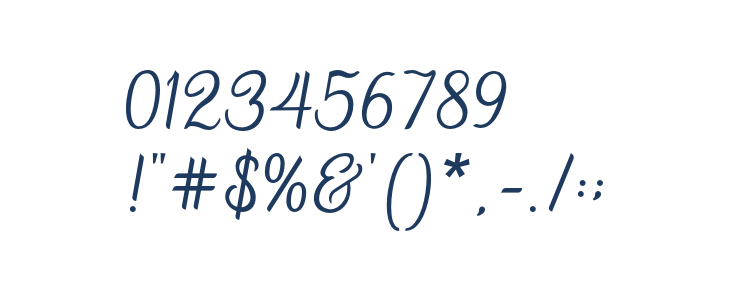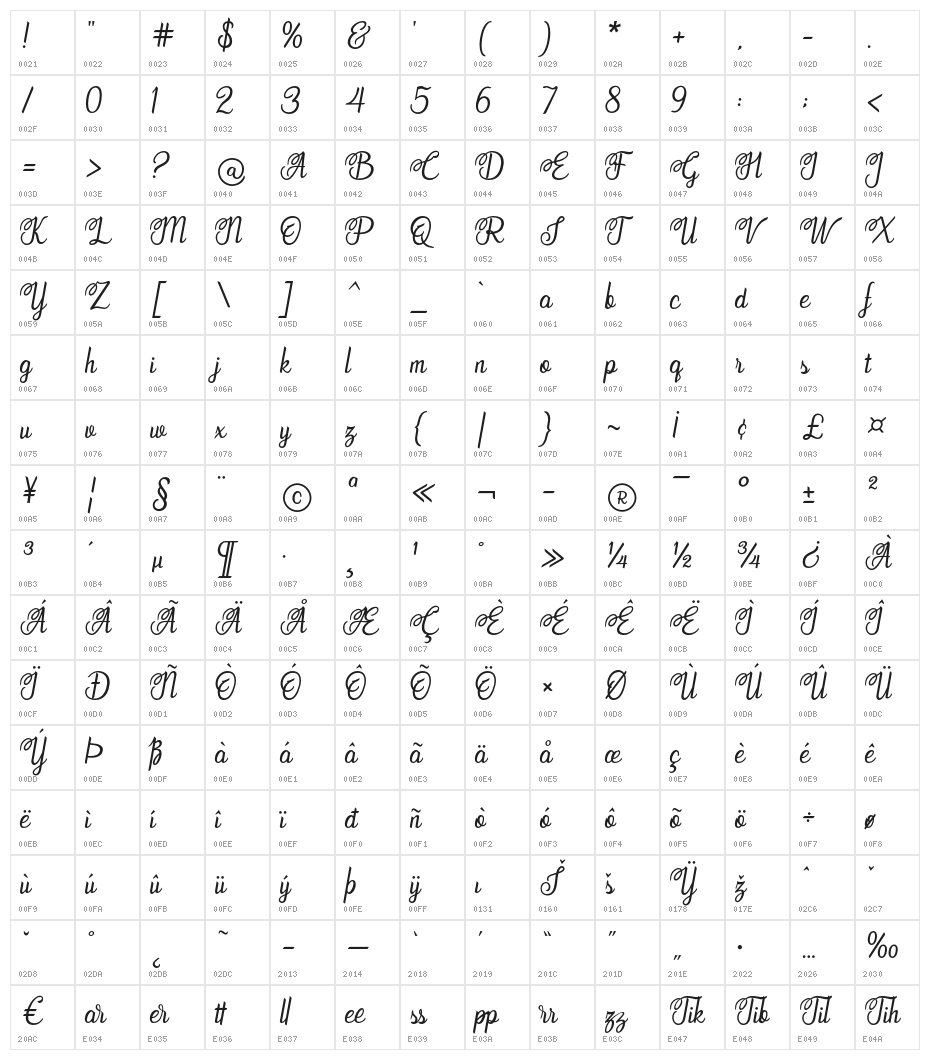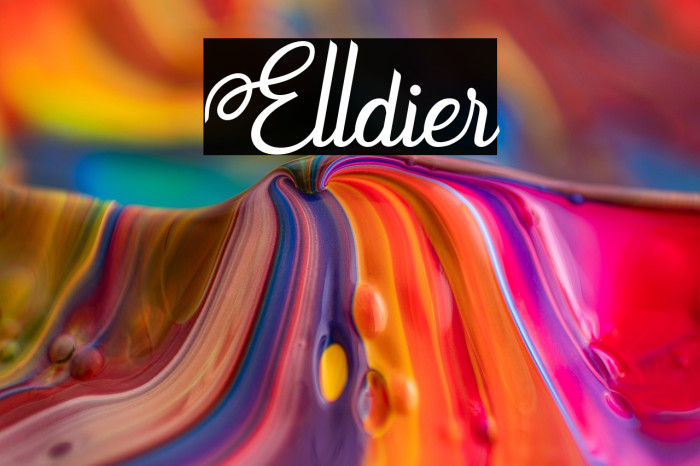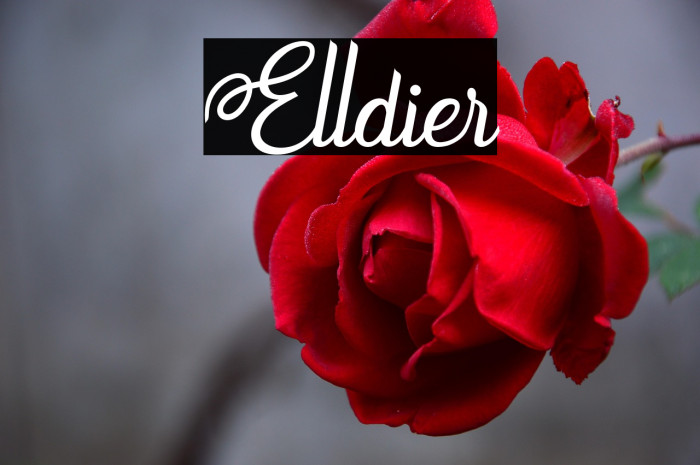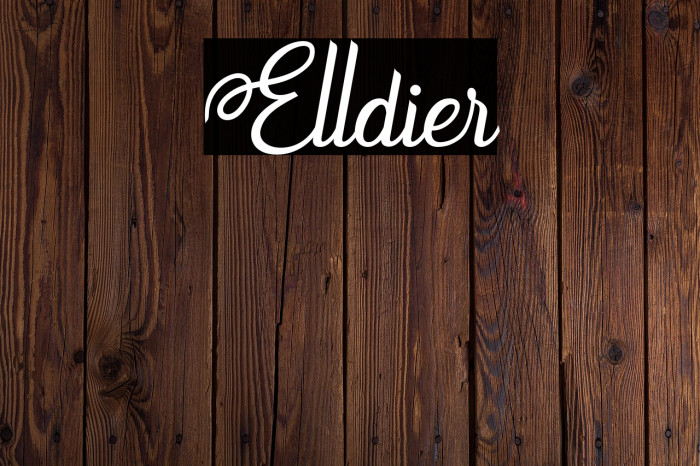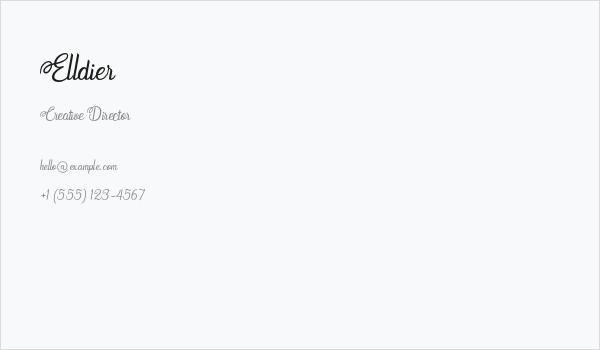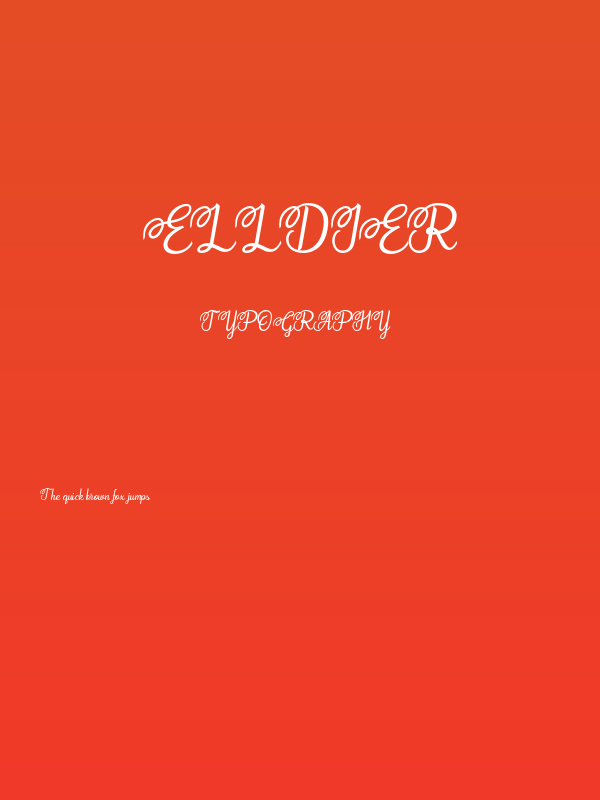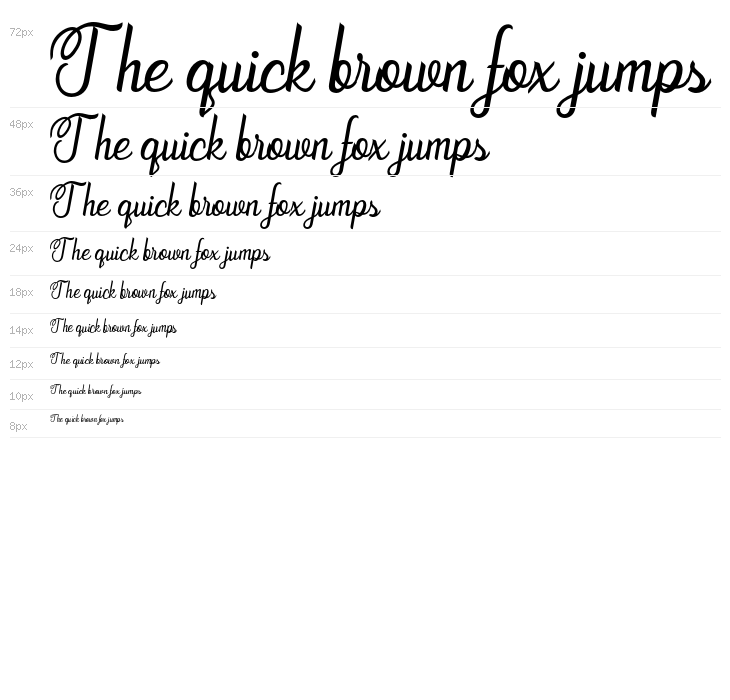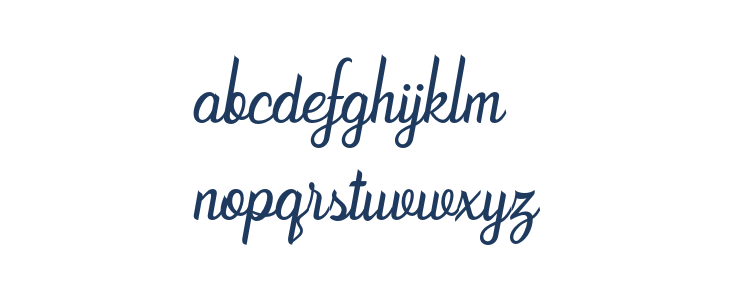
Elldier Font
Elldier Description
This elegant script font features a flowing, cursive style with smooth, continuous strokes that create a sense of fluidity and grace. The uppercase letters are ornate, with intricate loops and swirls that add a decorative touch. The lowercase letters maintain a consistent rhythm, enhancing readability while retaining the font's sophisticated charm. Numbers and special characters are designed to match the overall aesthetic, ensuring a cohesive look across all text elements. This font exudes a sense of elegance and refinement, making it ideal for projects that require a touch of class and sophistication.
| Overall Style | Elegant, Decorative |
| Use Case | Headlines, Invitations, Branding |
| Proposed Projects | Wedding invitations, luxury branding, elegant stationery, and high-end product packaging. |